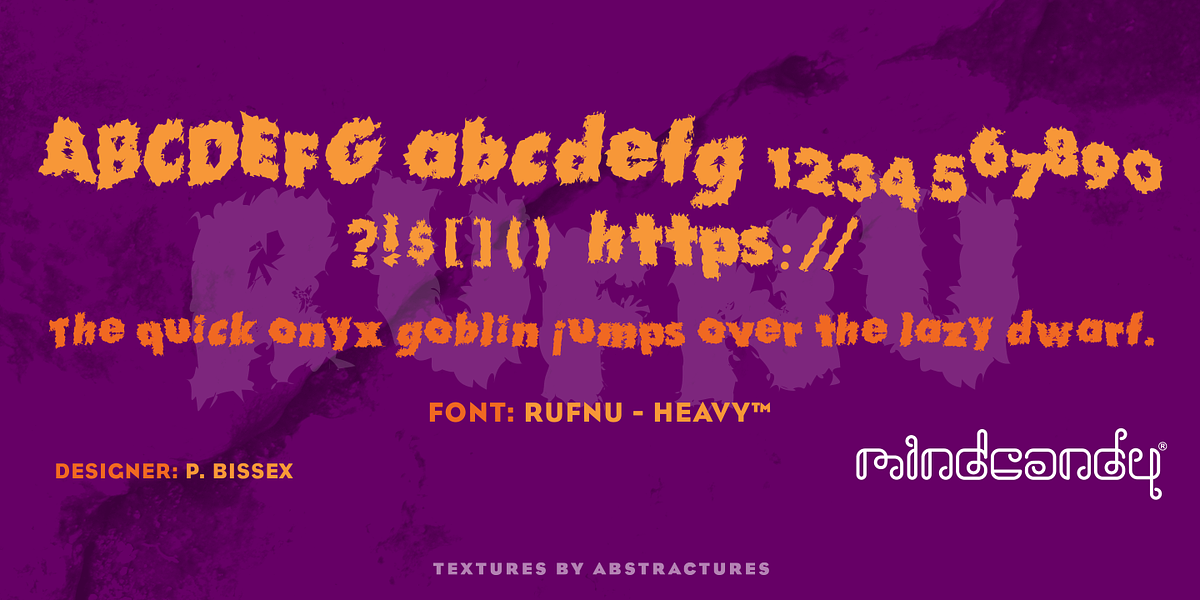
Rufnu - Heavy™
This grunge font by Paul Bissex offers a rough and bouncy aesthetic. Its 'novelty' classification suggests it's well-suited for designs needing a unique and playful touch.